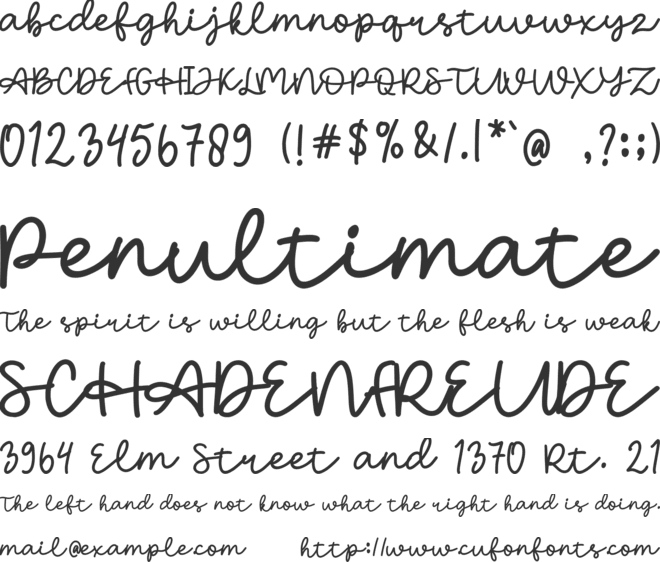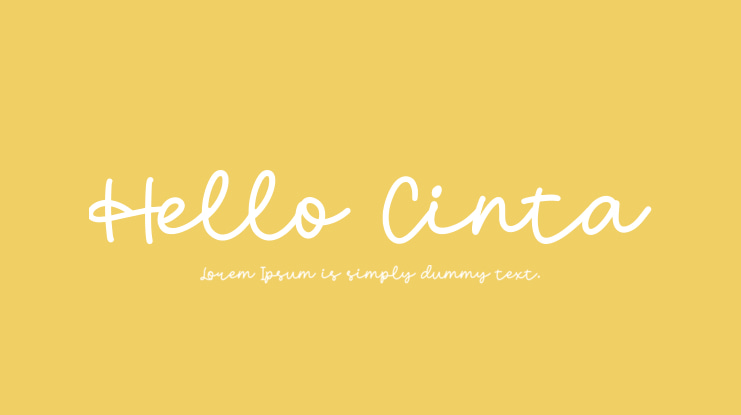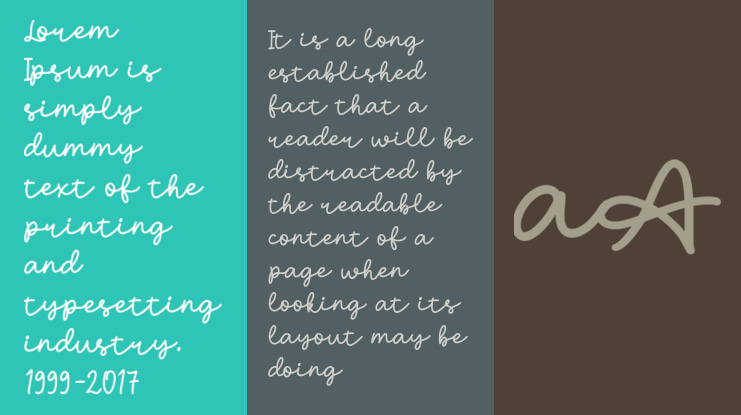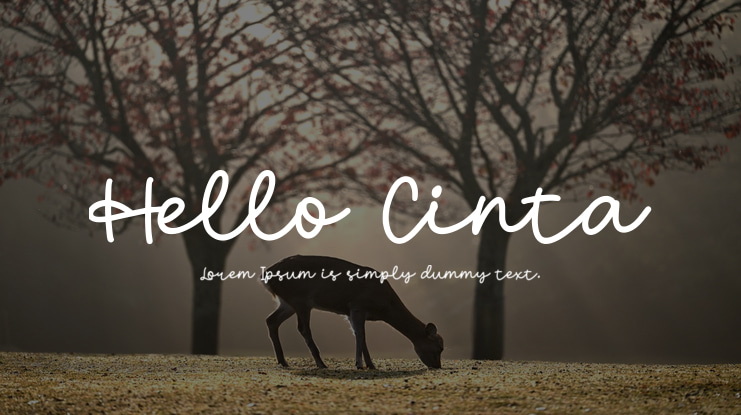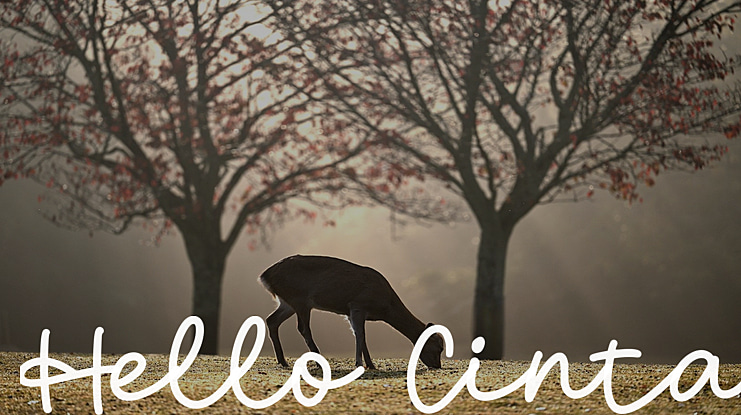
Hello Cinta Font
Burhan Afif
Hello Cinta is an monoline with swashes font, carefully handcrafted to become a true favorite. It can be used for various purposes such as logos, invitations, headings, t-shirts, letterhead, signage, labels, news, posters, badges and so much more.